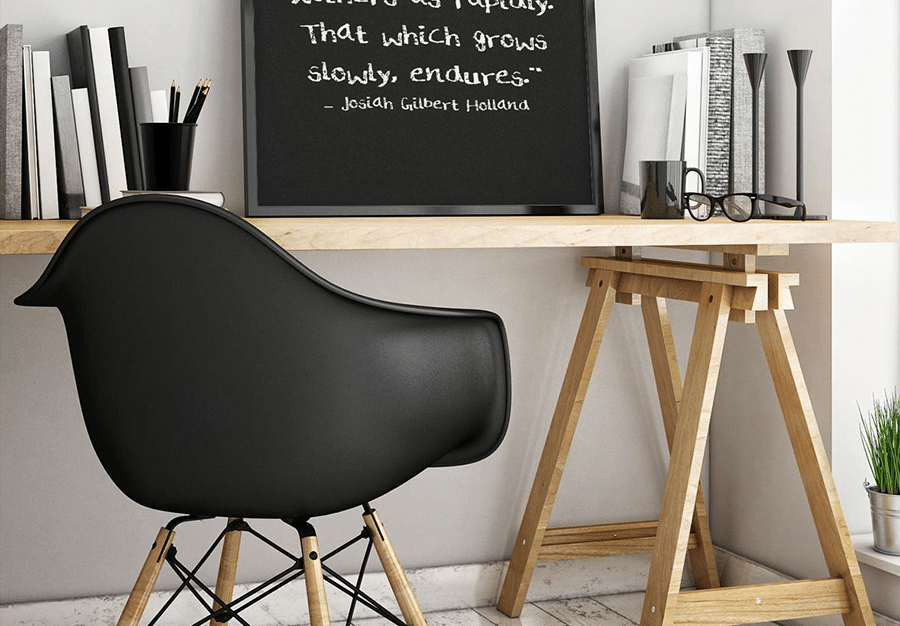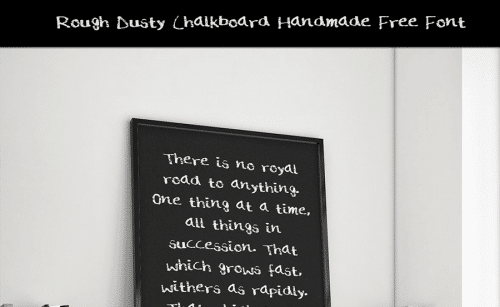
Rough & Dusty Font is handmade font in Upper & Lower case and it includes numbers, special characters and few symbols. We have created it with a imperfect flow that will give your text a unique & natural look.